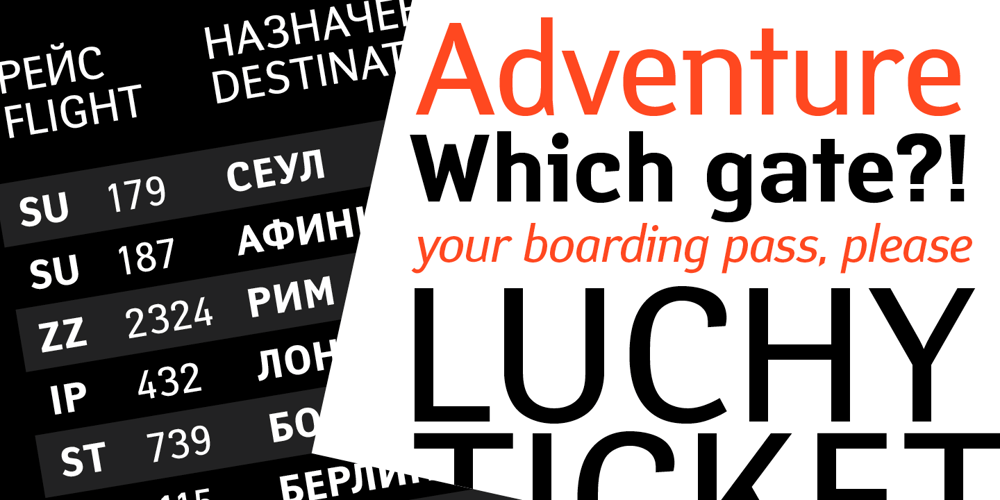
Yanus Font Family was designed by Tagir Safayev and published by ParaType. Yanus contains 4 styles and family package options. Designed at ParaType in 1997 by Tagir Safayev. Inspired by Neulin Sans of Ray Gun magazine (1996). The first version of the typeface was created as part of corporate identity program for Aeroflot–Russian International Airlines. For use in both text and display matters.